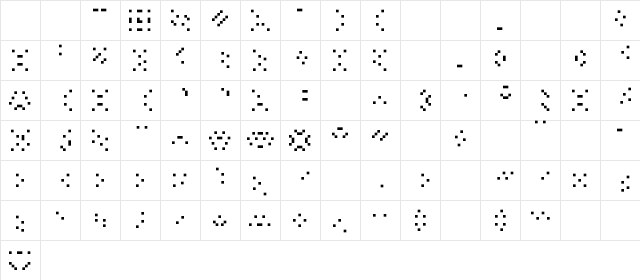
Complete YetBumblerAlias Medium glyph index. Displaying only characters natively supported by YetBumblerAlias Medium font.
YetBumblerAlias is a composed and adaptable typeface that performs quietly and consistently across a wide range of design contexts.